Constituent of Kanji and Creation Points 02: “Vertical Division System”
The part on the left of kanji is “hen,” and the part on the right of a kanji is “tsukuri.” Today, I would like to introduce hen, tsukuri, and points on creating constituents of kanji with vertical divisions.
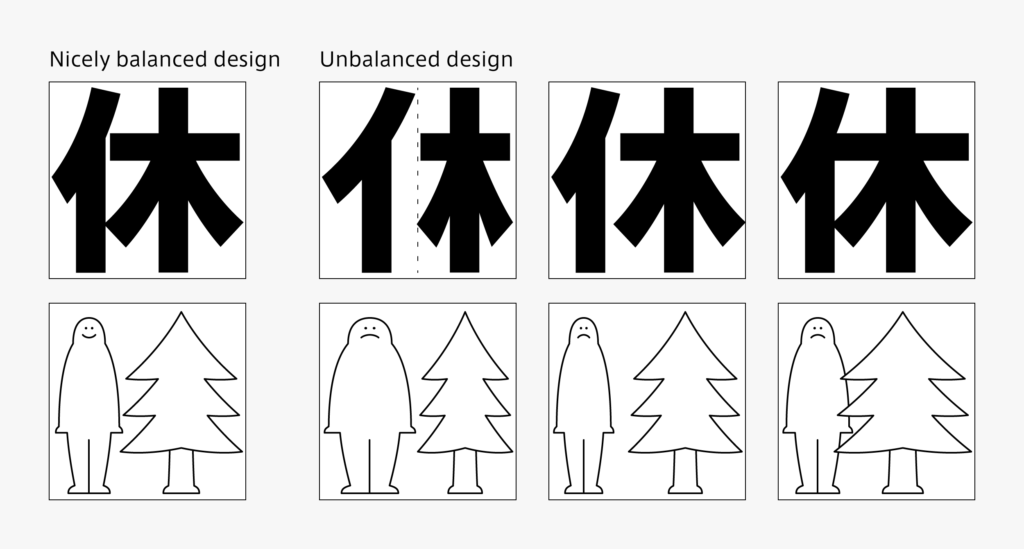
When aligning two elements horizontally, creating the width of 50:50 doesn’t achieve a beautiful balance for most characters. The horizontal width of constituents on the right and left are adjusted in such a way as to smoothen the density of strokes over the character as a whole. The degree of free space is also important. The degree to which each part is visible in one single kanji is important to take into consideration when creating typeface. At a boundary of elements, the shape of each element may interfere with another. For example, when the horizontal stroke of “木” is about to collide with “イ” in the kanji “休,” the correction is made to shorten the horizontal stroke a little. Regarding thickness of the strokes, adjustment is made to match the number of vertical strokes in the vertical division system in many cases. The outline is adjusted sometimes when checking the general principle, etc., such as “gradually thicken the vertical stroke from left to right.”